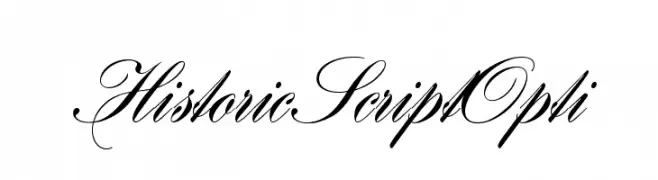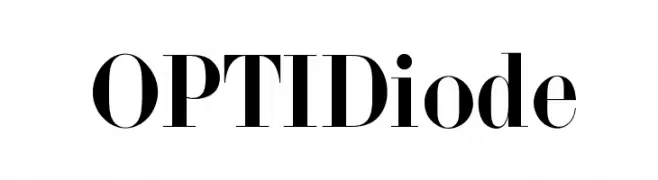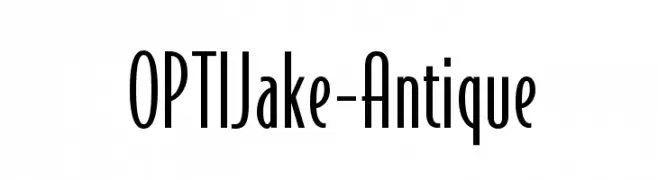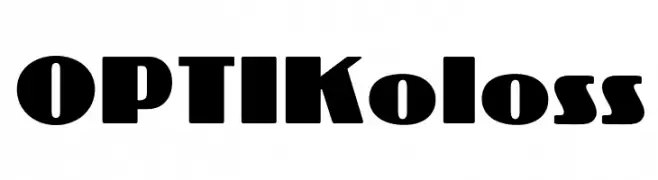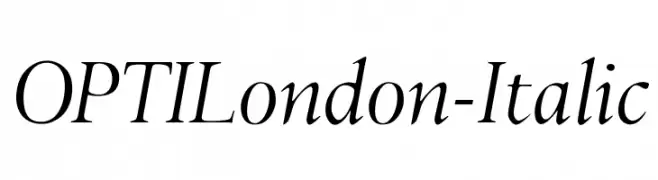
A bold, geometric font with a modern and assertive style.
A bold, condensed typeface with strong, legible characters ideal for impactful headlines.
A bold, futuristic font with geometric shapes and rounded edges.
A high-contrast serif font with elegant, sharp serifs and refined details.
An elegant serif font with decorative swashes and classic styling.
An elegant script font with intricate curves and historical charm.
An elegant serif italic font with graceful curves and sharp serifs.
A tall, narrow typeface with a vintage and elegant style.
A bold, playful font with dynamic curves and a lively style.
A tall, elegant serif font with high contrast and sharp serifs.